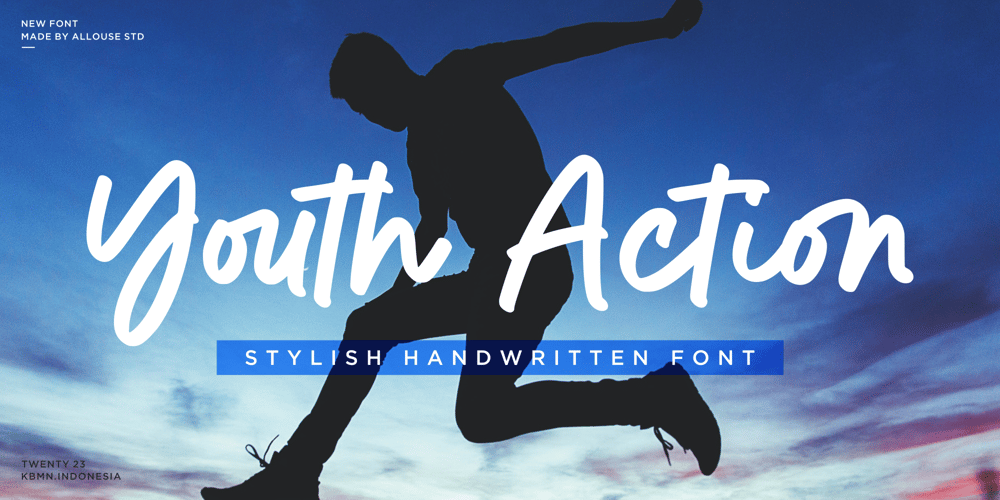
Youth Action
Youth Action font
Youth Action Font Family was designed by Fachrizal Yusuf and published by Allouse Studio. Youth Action contains 1 styles and family package options. Proudly Presenting, Youth Action A Stylish Handwritten FontYouth Action is perfect for any titles, logo, product packaging, branding project, megazine, social media, wedding, or just used to express words above the background.Youth Action also come with Multi-Lingual Support.Enjoy the font, feel free to comment or feedback, send me PM or email. Thank You!